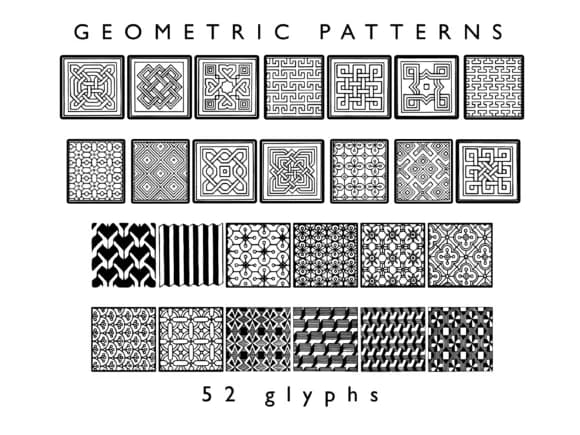
1 / 5About Geometric Font
This collection of abstract shapes and geometric forms offers something refreshingly different for designers who work primarily with symbol-based systems. Created by The Tenacious Type Studio, Geometric delivers clean polygons, triangles, squares, and other precisely grid-aligned patterns that feel significantly more refined than most typical symbol sets. Each character maps to a distinct shape or pattern element, giving you a flexible library of modular pieces rather than traditional letterforms.
The real strength lies in how readily this font adapts to specific project types. You'll find it especially useful for custom Cricut designs and sublimation work, where layering geometric elements together creates genuine visual interest and depth. DIY craft signage becomes more polished with these blocky, contemporary forms, while they work beautifully on Etsy product labels where a modern aesthetic directly impacts customer perception. Small-batch packaging for boutique goods and minimalist retail spaces comes alive when you use these repeating pattern elements as accent borders or scattered illustrations throughout your layout.
Designers building comprehensive clip art libraries or diving into abstract pattern illustration work will particularly appreciate how these shapes stack and combine into larger compositions. Since the font uses a polygon-based approach, you're never limited to single uses. Find Geometric on Creative Fabrica and start layering these shapes into your next project.
Geometric Font is a versatile dingbats font that works for both headings and body text. Pair it with a contrasting sans-serif or serif font to add visual interest and a clear distinction between titles and body copy.